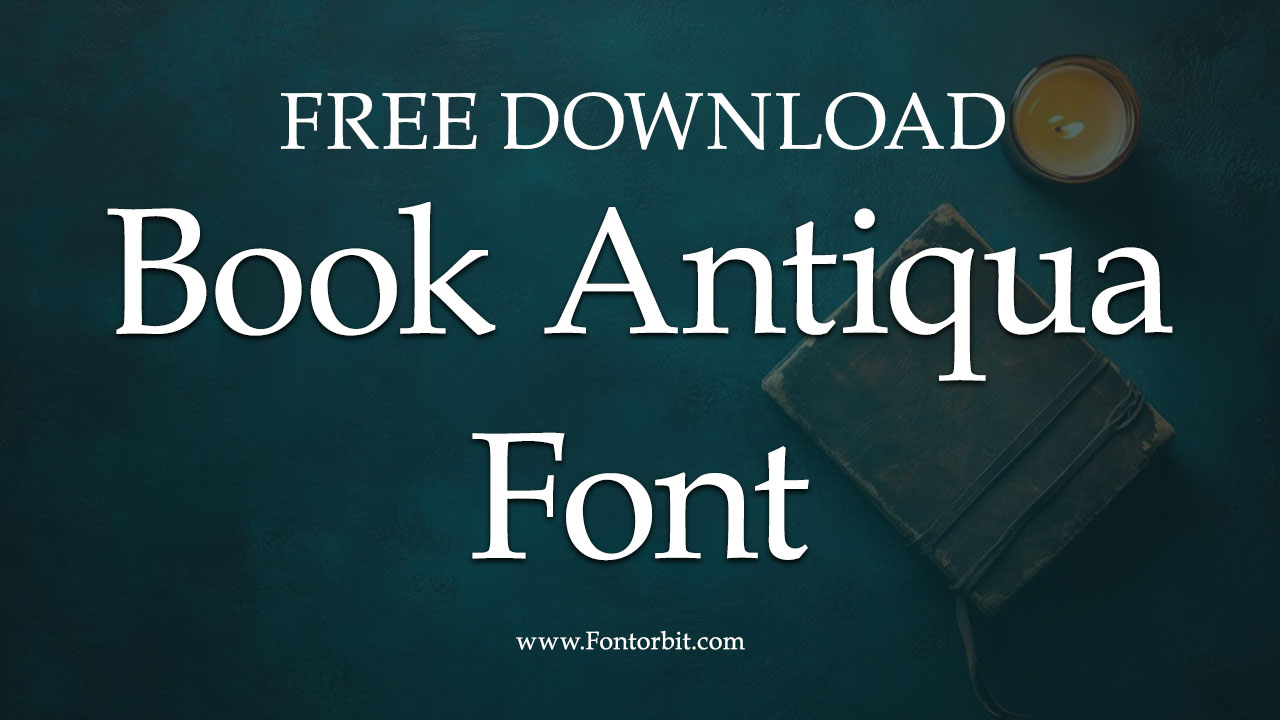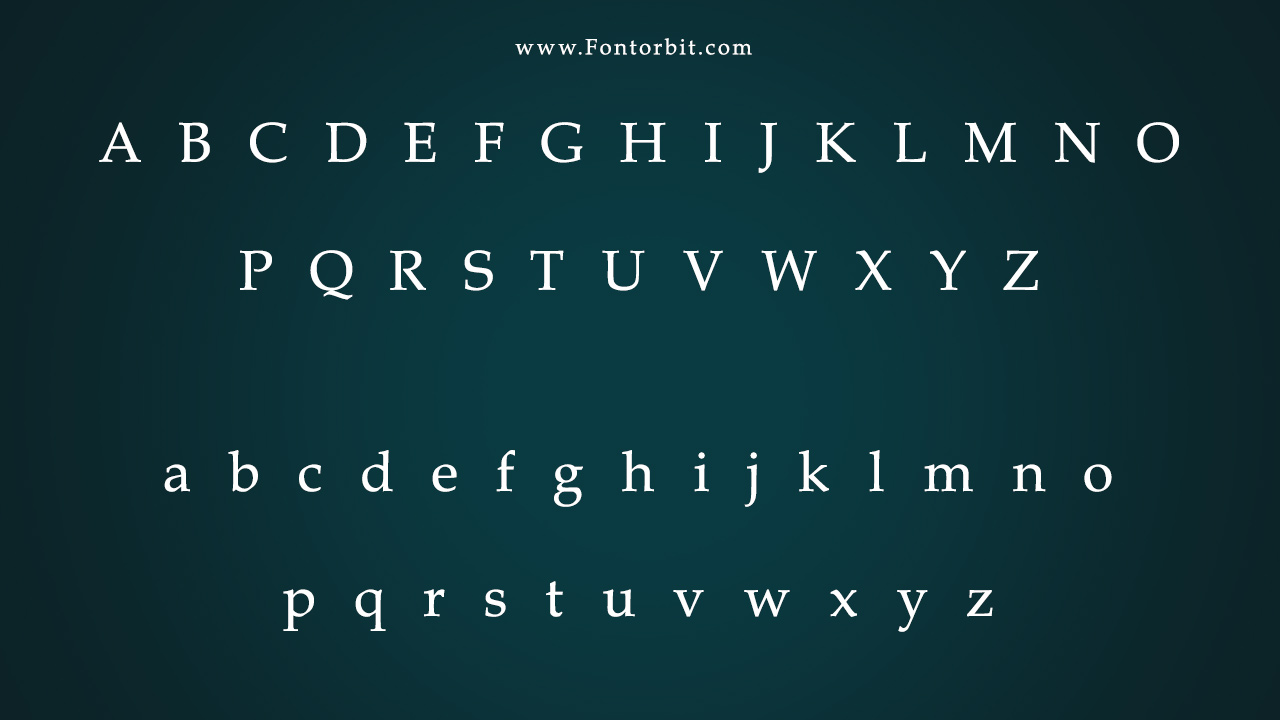
Book Antiqua is a serif typeface known for its classic, elegant, and readable design. Designed by the Monotype Type Drawing Office and published in 1991, this font belongs to the Antiqua family of fonts. Designers developed it as an alternative to the Palatino typeface.
Book Antiqua’s timeless style and versatility have earned it admiration, making it a favorite in print media, branding, and web design.
Book Antiqua Family Includes
The Book Antiqua typeface family provides a range of styles suited for both digital and print designs, combining tradition with modern readability. Here are two pieces of key information:
- Book Antiqua
- Book Antiqua Bold
- Book Antiqua Bold Italic
- Book Antiqua Italic
Notable Uses Of Book Antiqua
Designers widely use Book Antiqua in both print and digital design. Below are some notable examples:
- Book Publishing
- Corporate Branding
Book Antiqua is ideal for situations requiring a formal, elegant look. Its versatility makes it an excellent choice for:
- Corporate Logos
- Academic Publishing
- Event Invitations
- Web Content
Book Antiqua continues to be a popular choice for designers seeking a classic serif font with a modern touch. Its elegant lines and versatile design make it a timeless font suitable for various applications, from print to digital. Whether creating corporate material or publishing a novel, Book Antiqua will elevate your project.
4.What Kind Of Projects Is Book Antiqua Best Suited For?
It works well for print, logos, web design, and formal documents.
5.What Is The Difference Between Book Antiqua And Palatino?
Book Antiqua was designed to resemble Palatino but has some distinct design adjustments.
6.Can Book Antiqua Be Used For Web Design?
Yes, it is often used in web design for professional and readable content.
7.What Fonts Pair Well With Book Antiqua?
Sans-serif fonts like Arial or Helvetica pair nicely with Book Antiqua.